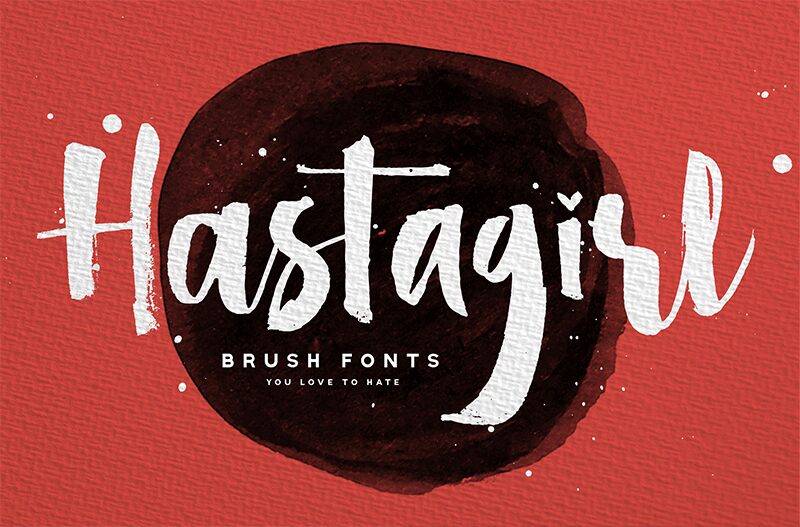
Fashion is an instant language, when we talk about the graphic design, let's just say that fonts are the fashion of it. It's like an outfits and audience magnet of it. So that's what we came for, Please welcome, Hastagirl!, the fresh auto-chic and stylish attitude for your display look. Multiply the chicness of your design and show the world how special you are. Perfectly fit for your fashion branding, social media post, logo, handwritten quotes, packaging design, and everytime you need a stylish fonts to strike a pose.